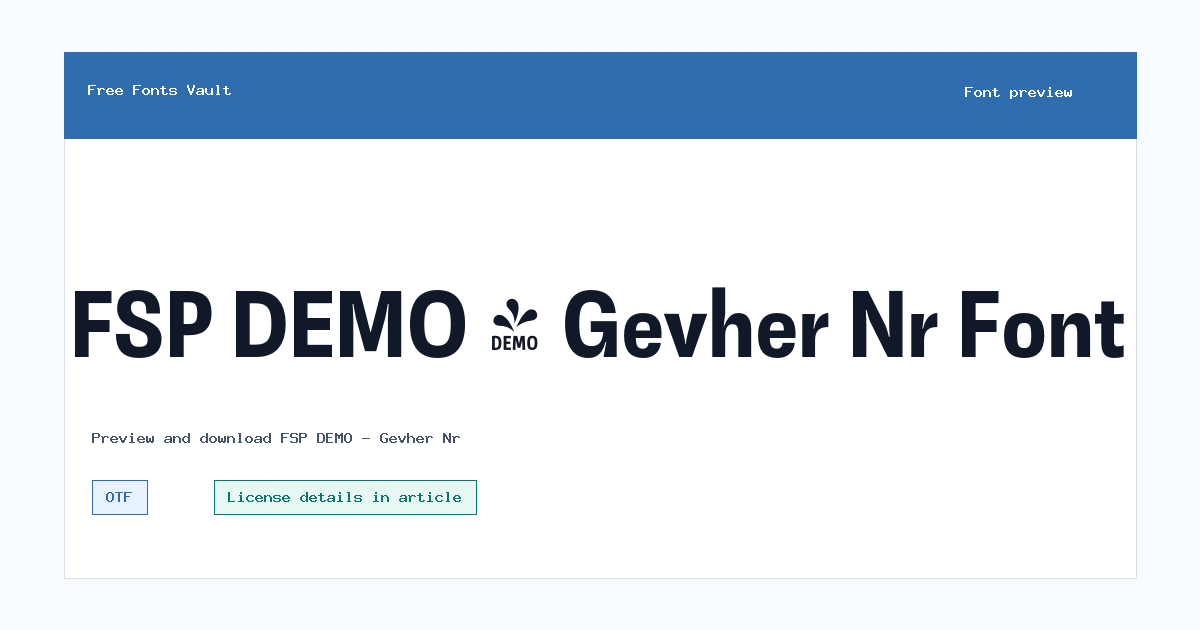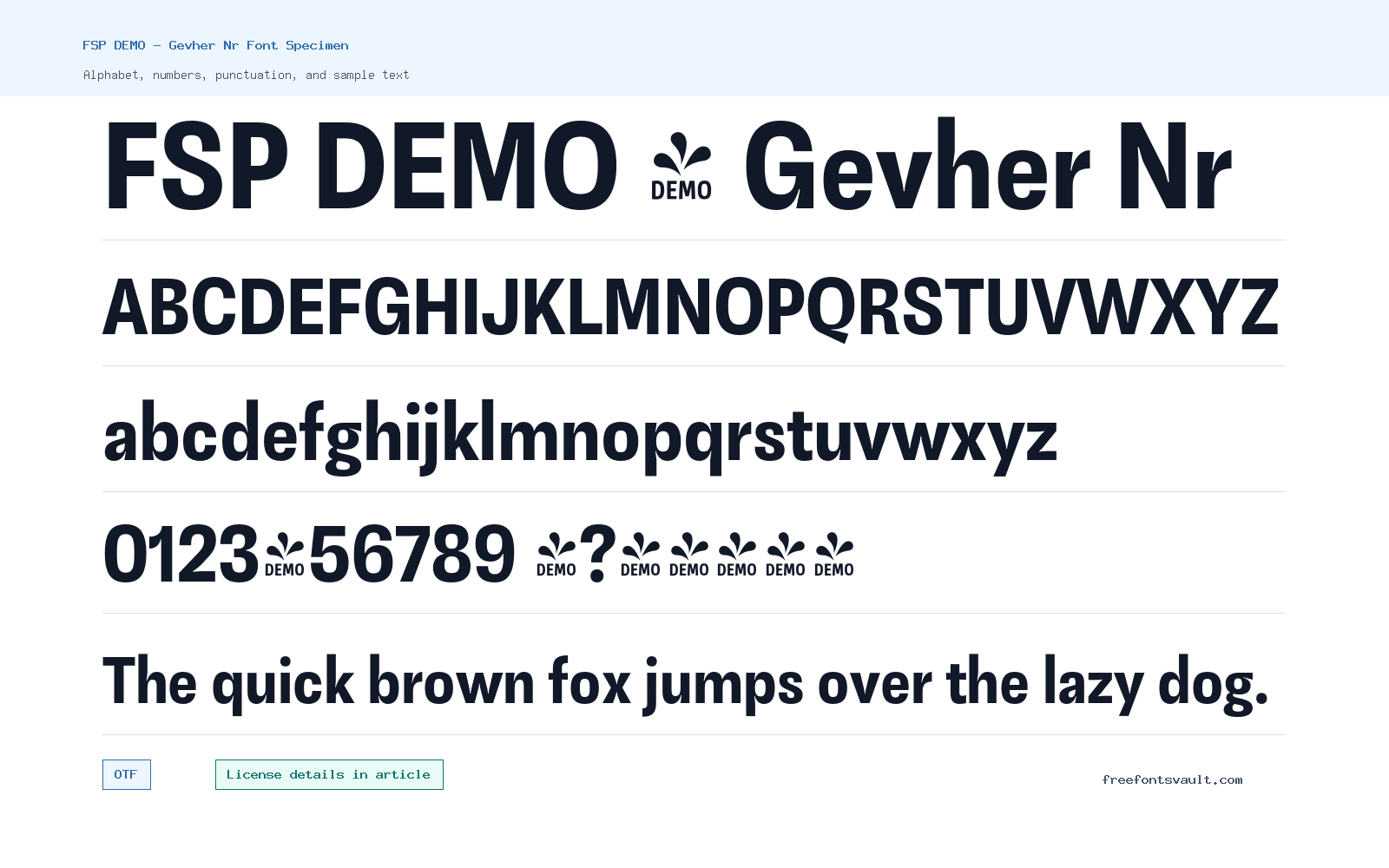
FSP DEMO - Gevher Nr
FSP DEMO - Gevher Nr font preview showing the family name
FSP DEMO - Gevher Nr Font
FSP DEMO - Gevher Nr font specimen showing alphabet, numbers, and sample text
• Designer Oguzhan Cengiz
• Foundry Hurufatfont Type Foundry
FSP DEMO – Gevher Nr font.
FSP DEMO – Gevher Nr is a bold OpenType font style credited to Oguzhan Cengiz and Hurufatfont Type Foundry. It is a strong single-weight download for testing headlines, labels, and short display text.
About FSP DEMO – Gevher Nr Font
• Bold 700 weight for strong short text settings.
• Designer credit: Oguzhan Cengiz.
• Foundry reference: Hurufatfont Type Foundry.
• Headline previews, title mockups, and bold label tests.
• Posters, cover graphics, display banners, and short product names.
• Pairing with a simpler text face for paragraphs and small captions.
Is FSP DEMO – Gevher Nr a bold font?
Yes. The file is marked as a 700-weight style, which is commonly treated as bold.
Who designed FSP DEMO – Gevher Nr?
The font is credited to Oguzhan Cengiz, with Hurufatfont Type Foundry listed as the foundry.
What is this font best for?
Use it for short bold headings, labels, posters, cover mockups, and title tests rather than long reading text.